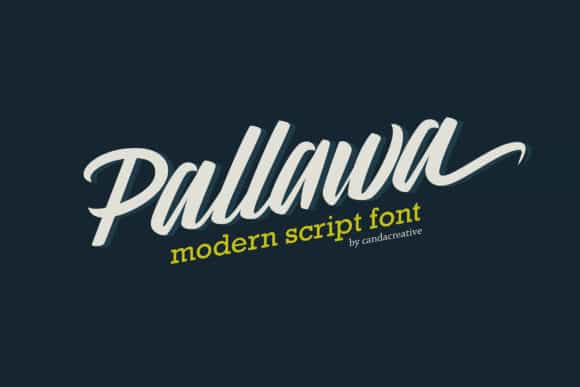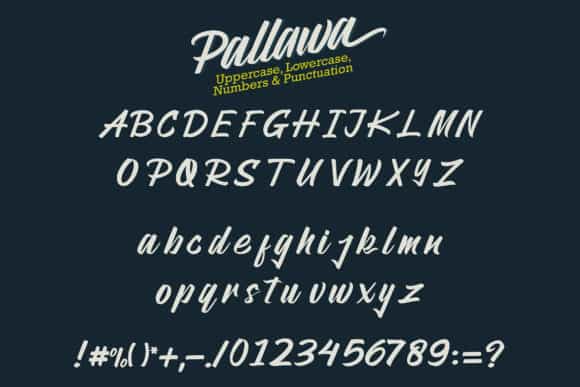
The Pallawa Font offers an modern script style created from a creative handmade brush. It can enhance any project. Transform them into delightful products. Use this font for creating logos, titles, wedding invitations, baby shower invitations, cards, greetings, labels, t shirts, pillows and much more.